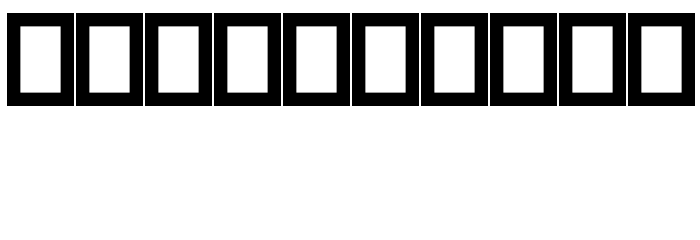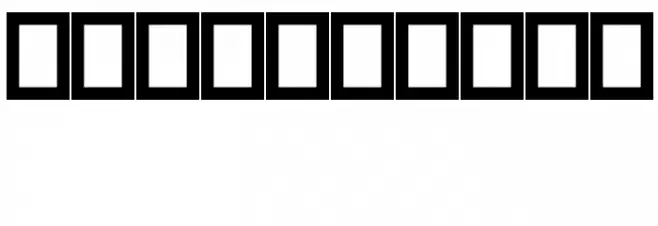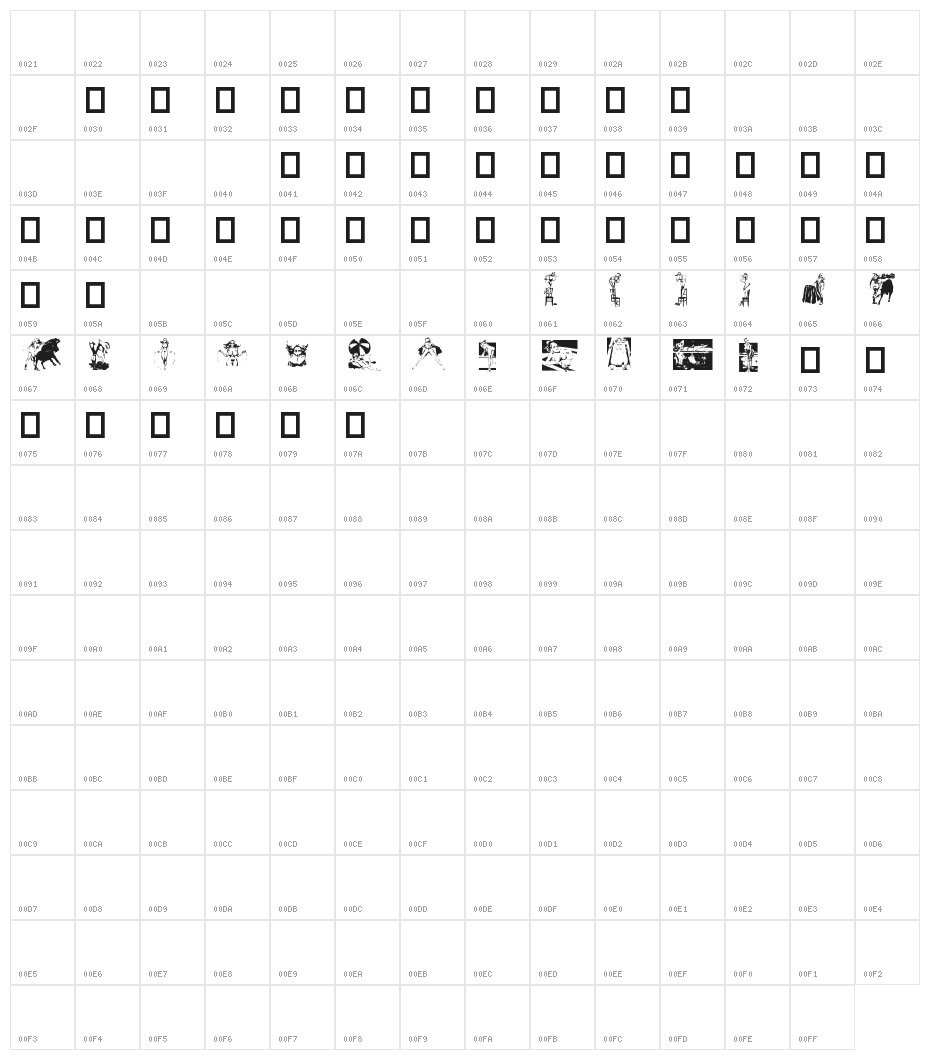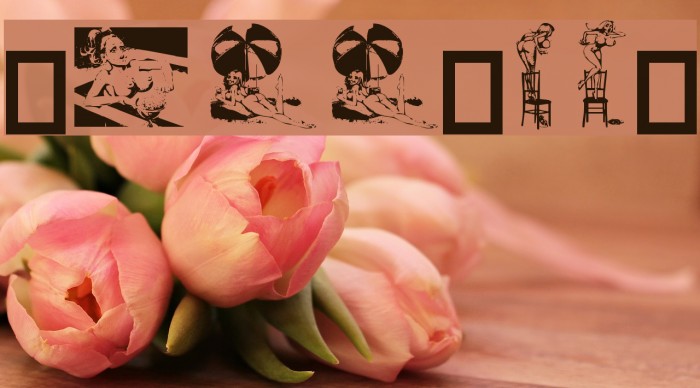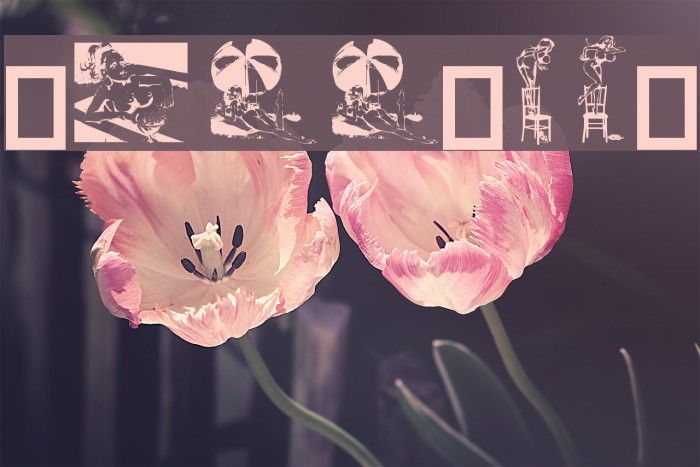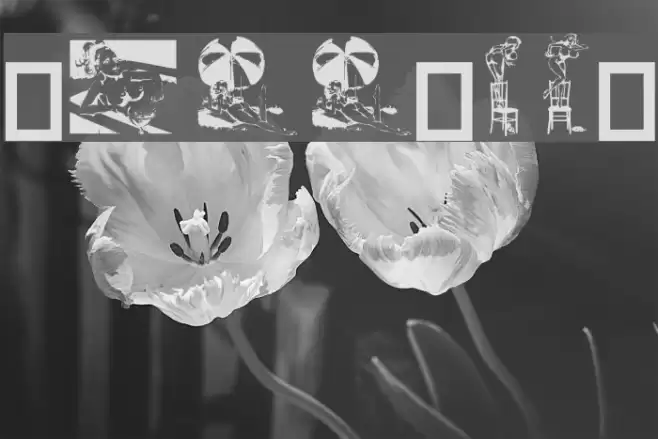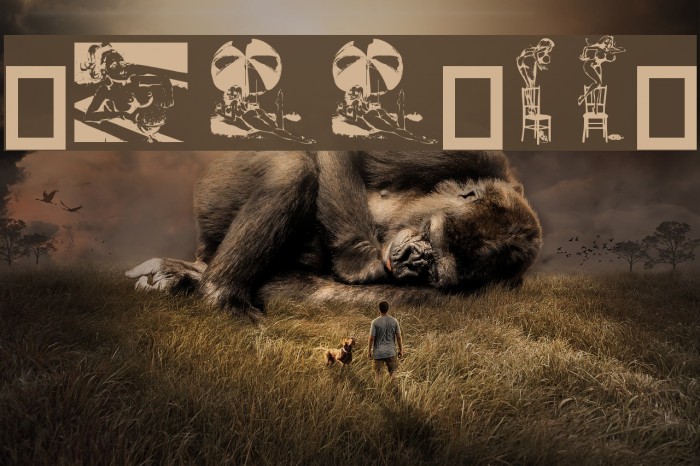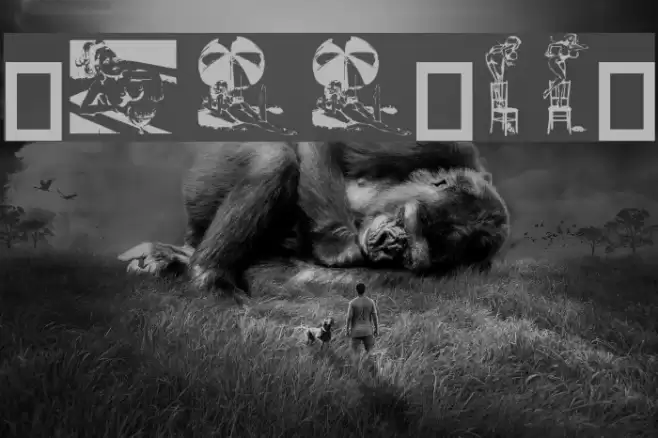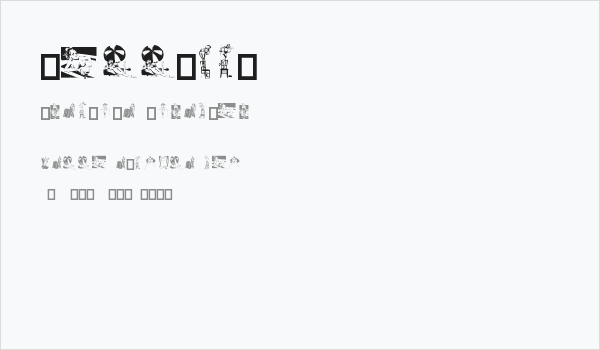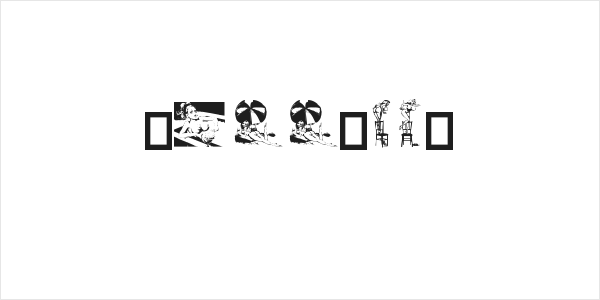
Dollybat Font
Dollybat Description
A decorative display font featuring illustrated pin-up and burlesque-style figures in place of standard alphanumeric characters, with each glyph representing a unique vintage scene or pose.
| Overall Style | Vintage, Decorative, Playful |
| Use Case | Logos, Posters, Themed Graphics |
| Proposed Projects | Posters, themed party invitations, retro or burlesque event branding, art projects, novelty merchandise. |